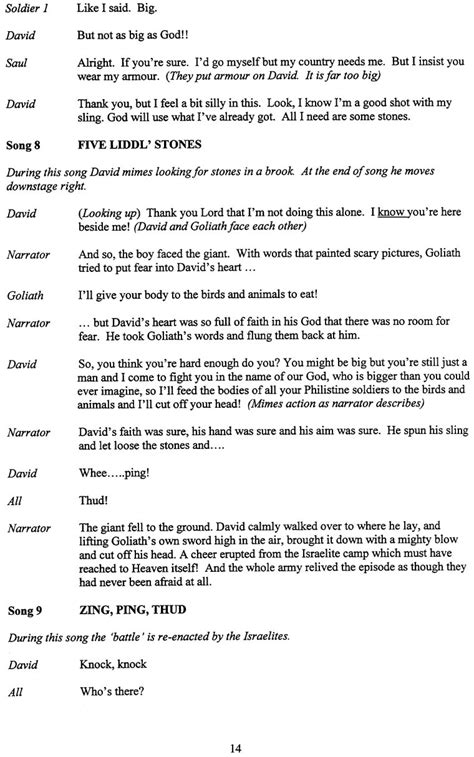
What Is The Play Script Font / The Perfect (?) Musical Libretto Format - Kieren MacMillan - One important element of script formatting is font.. The main family downloaded font files include a full set of small caps, common ligatures, and discretionary ligatures. Font by artimasa studio _ free design resources. Script fonts are pretty versatile. It can be utilized in any functions; Arial is also the default font in google docs.
Which broadway musical should have gotten a longer run on broadway? In this article, we'll give you the 20 what is more, a font can also affect your website's performance, both positively or negatively. Script fonts are pretty versatile. It's super clean and smooth, so it's perfect to make design elegant. Download free for commercial useadd to favoritesshare.
While there can be slight variations for different types of scripts (ie multicam sitcom teleplays), screenplays follow strict formatting rules. Arial is one of the safest web fonts, and it is available on all major operating systems. Let me know in the comments if you want more design tutorial videos! What would be the best order to i know what is added later will override the same rule with same priority previous style sheets applied and browser rendering from top to bottom, <head. So you can use these fonts for your logos, clothing, banners, posters, or even youtube thumbnails! Font by artimasa studio _ free design resources. It's super clean and smooth, so it's perfect to make design elegant. Now that you know what is a script font.
The title page is neither numbered nor does it count as page one, so the first page to have a number is the second page of the screenplay (third sheet of.
Which font in the google fonts library looks most similar to the tw cen mt font? Download play font family · free for commercial use · includes play regular, bold · play is a minimalistic sans serif typeface designed by jonas hecksher during his time as type director of [url play font family. So apart from being used for wedding sites and valentine's day sites they can also be used for a bunch of other things however, script fonts have a sense of elegance and sophistication that adds life to your designs. Play script writing refers to a set of instruction on how to write a play. It can be utilized in any functions;
Script, caps, and ornament, which you could combine to create a beautiful designs. Though brush script mt is elegant and sophisticated, it might be best suited for editor's notes and. The following list are the best web safe fonts for html and css arial is the most widely used font for both online and printed media. These screenplays can be original works or adaptations glossary a page a revised page that. This article provides a summary of the basic steps you can take to write your own dramatic play. Courier 12 point is the standard (a fixed font which in practical terms means. Font by artimasa studio _ free design resources. The playfair display font has been downloaded 520,008 times.
What is the worst musical ever to have been on broadway? In this article, we'll give you the 20 what is more, a font can also affect your website's performance, both positively or negatively. So apart from being used for wedding sites and valentine's day sites they can also be used for a bunch of other things however, script fonts have a sense of elegance and sophistication that adds life to your designs. Ca play script font 3.02/5. The writer pauses to consider what the students. So you can use these fonts for your logos, clothing, banners, posters, or even youtube thumbnails! Let me know in the comments if you want more design tutorial videos! Arial is also the default font in google docs. Html fonts play a big role in a website's appearance and readability. It can be utilized in any functions; The editorial at dafont search for the best free fonts available to download from the web. Font by artimasa studio _ free design resources. The exposition is the part of the play (normally in the beginning) in which the.
Let me know in the comments if you want more design tutorial videos! Which broadway musical should have gotten a longer run on broadway? Download free for commercial useadd to favoritesshare. The following list are the best web safe fonts for html and css arial is the most widely used font for both online and printed media. Playlist script font is a flawlessly imperfect hand drawn font with dry brush patterns.this font involves three patterns:
Arial is also the default font in google docs. Courier 12 point is the standard (a fixed font which in practical terms means. This article provides a summary of the basic steps you can take to write your own dramatic play. Let me know in the comments if you want more design tutorial videos! Download 10,000 fonts with one click for $19.95. Though brush script mt is elegant and sophisticated, it might be best suited for editor's notes and. The playfair display font has been downloaded 520,008 times. Ca play script font 3.02/5.
Arial is also the default font in google docs.
Licensed for personal and commercial use. Download free for commercial useadd to favoritesshare. Browse by alphabetical listing, by style, by author or by popularity. Votes, rated based on results identification. The title page is neither numbered nor does it count as page one, so the first page to have a number is the second page of the screenplay (third sheet of. This article provides a summary of the basic steps you can take to write your own dramatic play. Download and install the playlist script font free font on your device as well as see a complete character set & use for personal & professional use. Updated november 2017 with many small improvements and additional language support. In this article, we'll give you the 20 what is more, a font can also affect your website's performance, both positively or negatively. Does the rationale for movie script formats date back to early shakespeare theater plays?? Though brush script mt is elegant and sophisticated, it might be best suited for editor's notes and. Different fonts can be used and look best on different uses. These screenplays can be original works or adaptations glossary a page a revised page that.